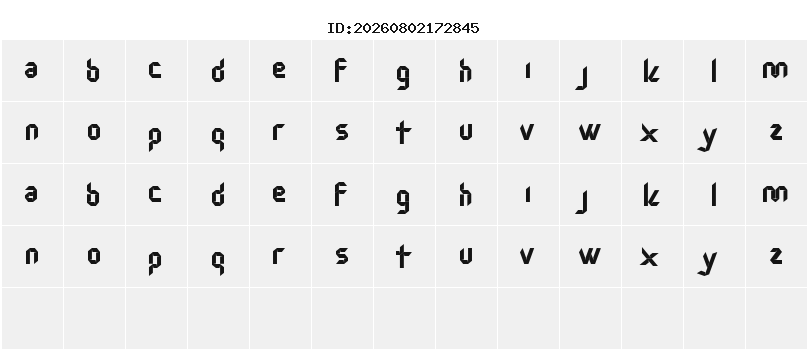
About Nudo.ttf
Nudo.ttf is a modern, elegant sans-serif font designed for ultimate readability and visual harmony. Perfect for branding, headlines, web design, and print materials.